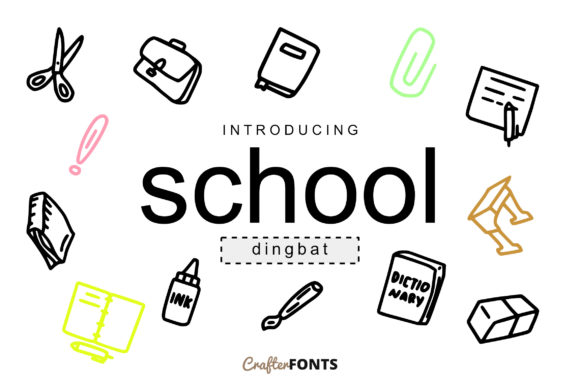
Embark on a Creative Voyage with School Stuff Font: The Key to Unlocking Your Doodle Dreams
In the realm of artistic expression, the School Stuff Font stands as a beacon of inspiration, a gateway to unleashing your creative energies and transforming your designs into captivating masterpieces. This collection of 62 symbols, meticulously crafted by the visionary minds at CrafterFonts, is a treasure trove of visual wonders, tailored to ignite your imagination and elevate your designs to new heights.
Immerse yourself in the boundless possibilities of the School Stuff Font, a dingbats font par excellence. Its playful and versatile nature lends itself effortlessly to a myriad of creative endeavors, from logos and branding to ornaments and accents. Let your imagination soar as you explore the endless applications of this extraordinary font, adding a touch of whimsy and personality to every project you undertake.
With the School Stuff Font as your creative companion, you'll discover a world of inspiration at your fingertips. Express your unique style and charm through captivating designs that resonate with your audience. Whether you're crafting a captivating logo that demands attention or adding a touch of playfulness to your website, this font is your secret weapon, the key to unlocking your creative potential.
Unleash the boundless potential of the School Stuff Font and embark on a creative journey like no other. Let your imagination run wild as you explore the infinite possibilities, transforming your designs into works of art that captivate and inspire. Embrace the magic of this remarkable font and unlock the true essence of creativity within you.